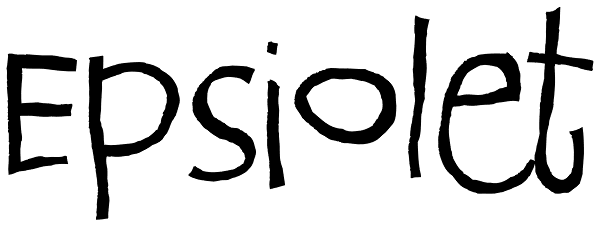
Epsiolet
Epsiolet is wacky, crunchy and unpredictable! Comes in Open Type with loads of different ligatures! Note: you will need to use OpenType supporting applications to use the autoligatures.
Epsiolet Font